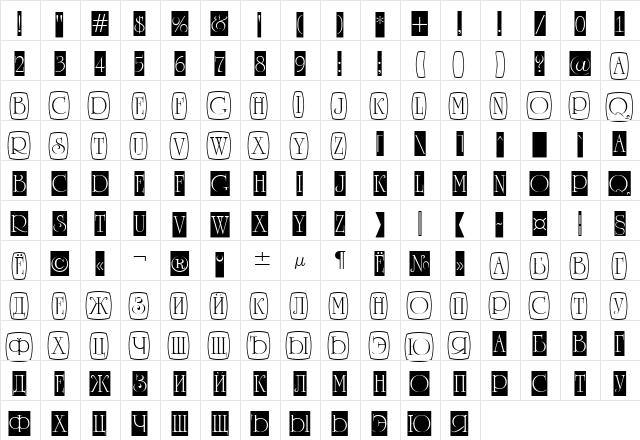
a_RomanusTtlCmD3Cb Regular
Design Context for a_RomanusTtlCmD3Cb Typeface
a_RomanusTtlCmD3Cb is a composed and adaptable typeface that performs quietly and consistently across a wide range of design contexts.